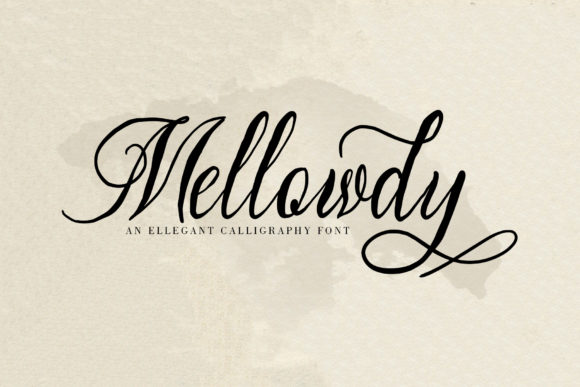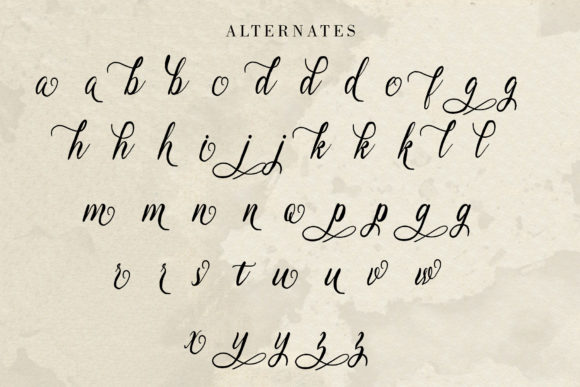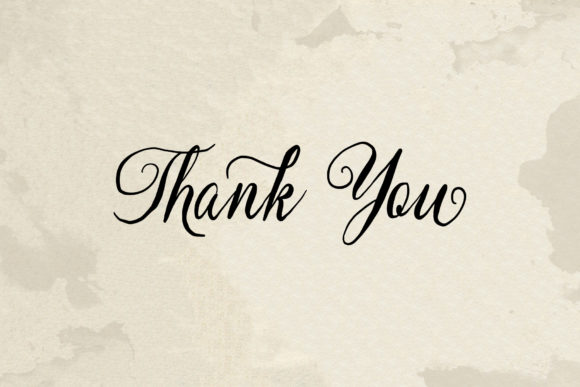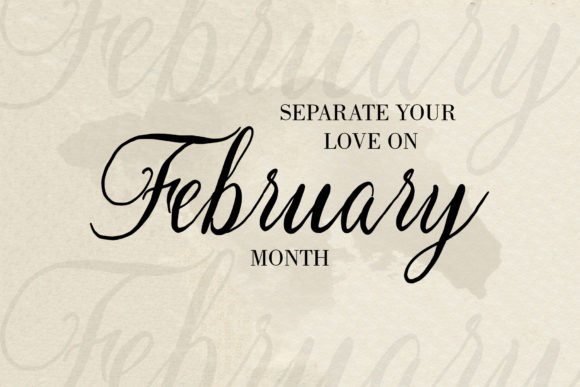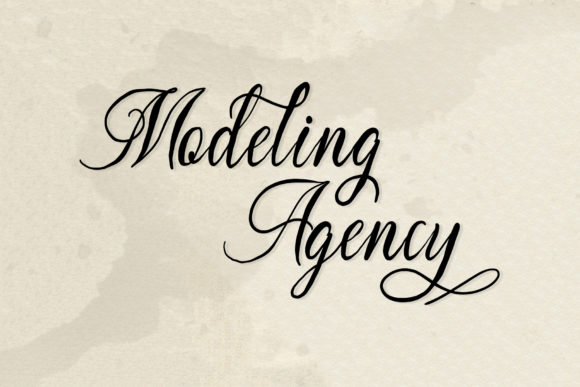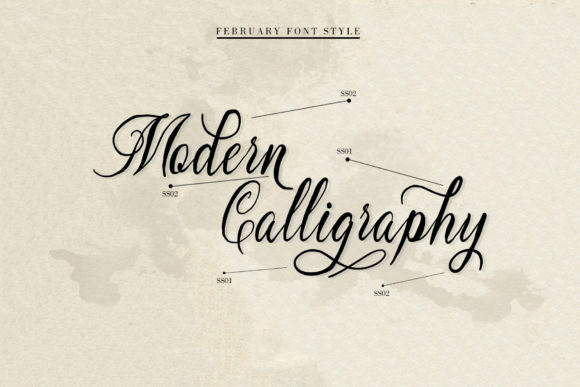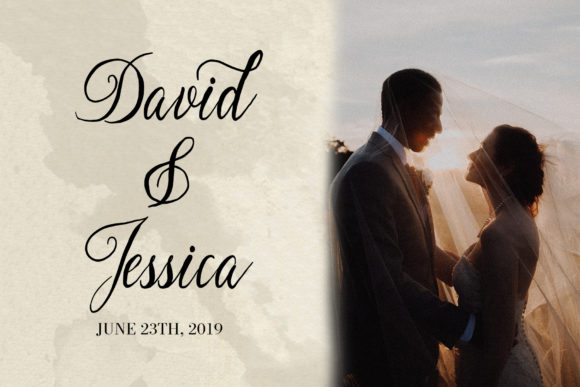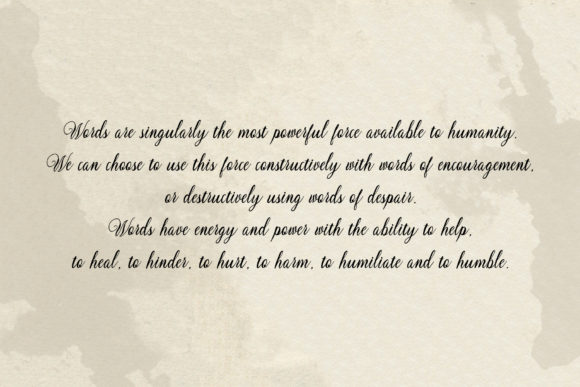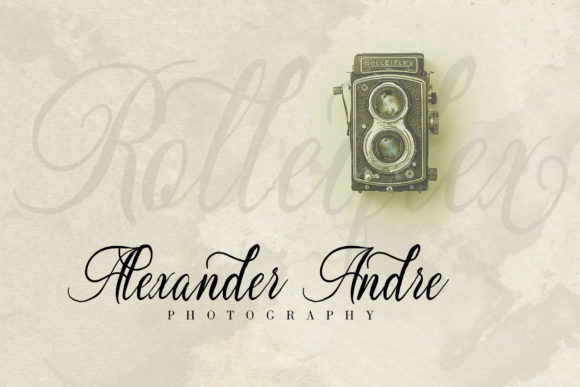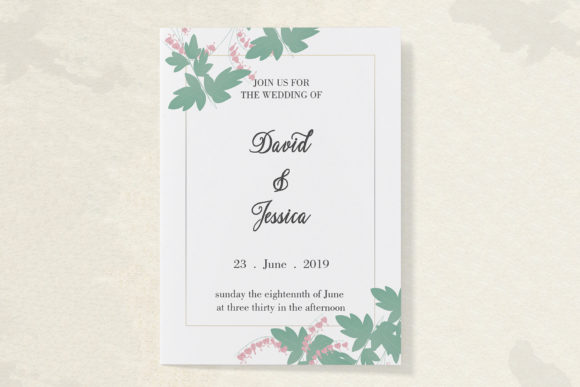
Mellowdy Font
About Mellowdy Font
Mellowdy updates classic calligraphy with a modern twist. Fall in love with its unique charm, and turn any design project into a true standout.